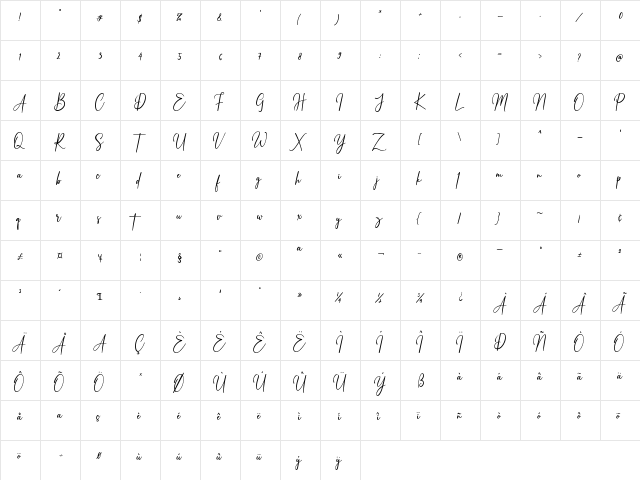
White Systemattic Regular
| Foundry | KongFont |
| Designer | Typeface騋ongFont).2020. |
Design Context for White Systemattic Typeface
White Systemattic is a composed and adaptable typeface that performs quietly and consistently across a wide range of design contexts.